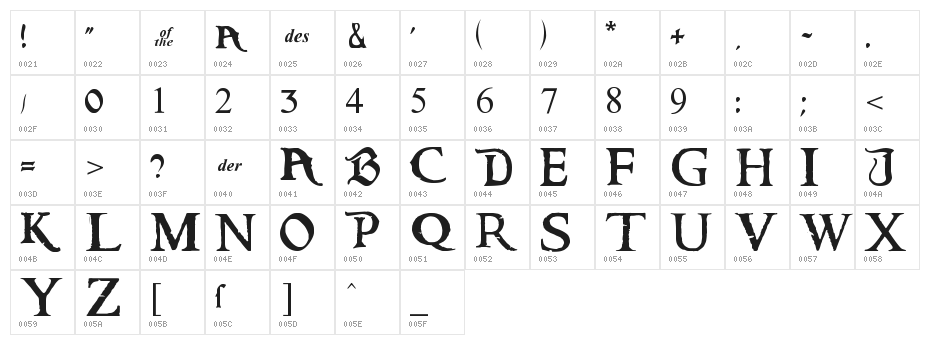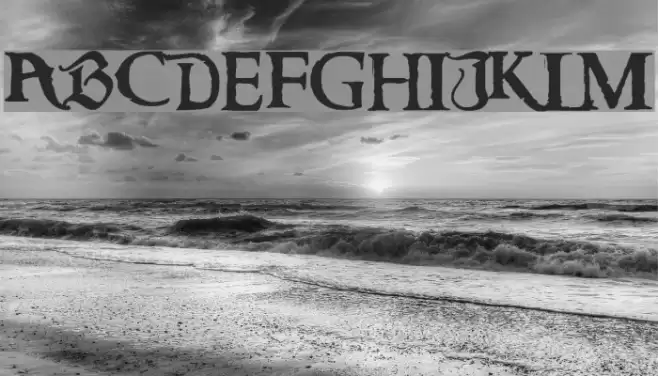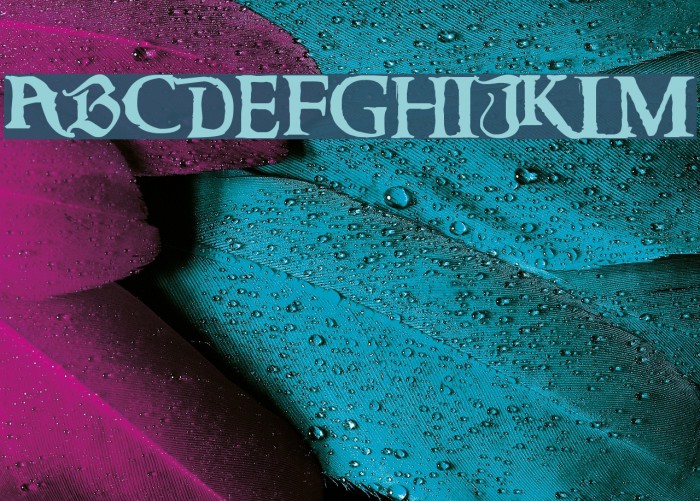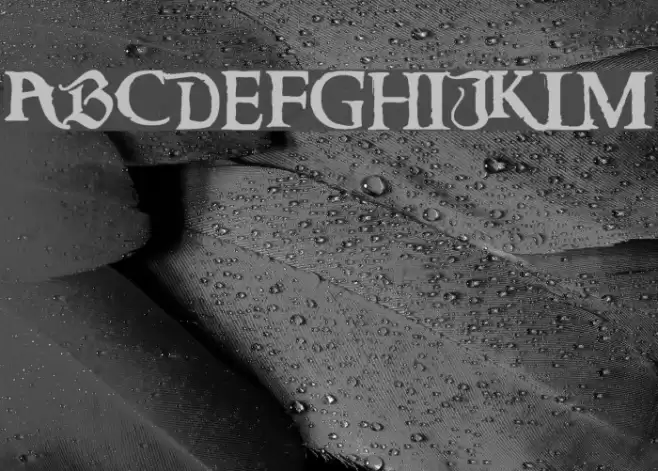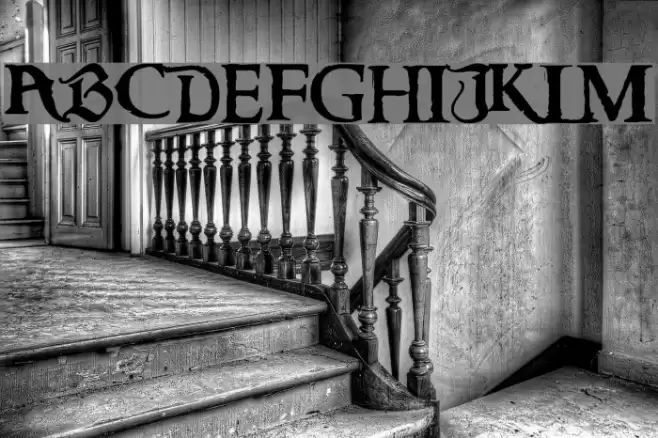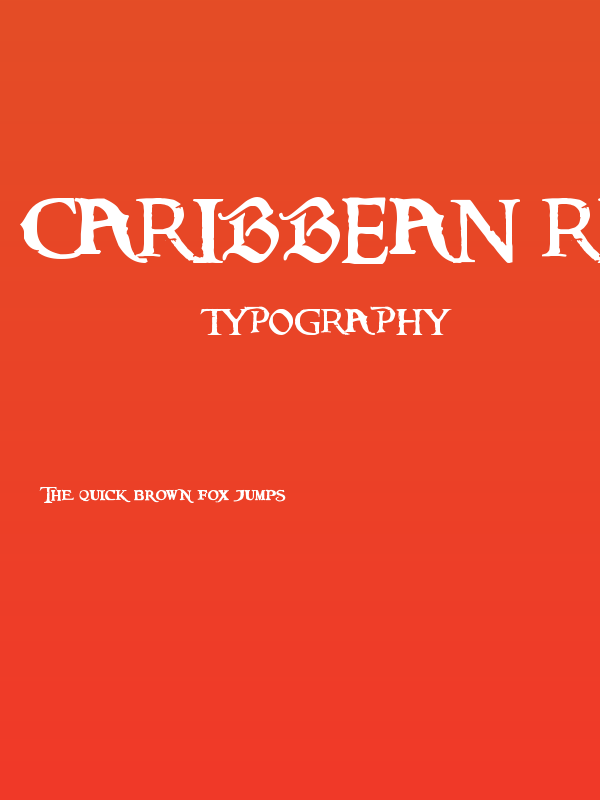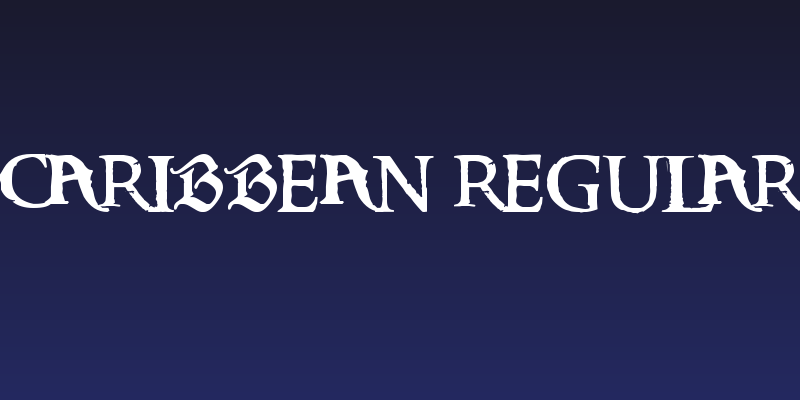
Caribbean Regular Font
Caribbean Regular Description
This font features a bold and dramatic style with a distinctively rugged and weathered appearance. The characters exhibit a hand-crafted look, reminiscent of old pirate maps or vintage nautical themes. The uppercase letters are particularly striking, with exaggerated serifs and uneven strokes that add to its rustic charm. The lowercase letters maintain the same rugged aesthetic, providing a cohesive look across the typeface. Numbers and special characters are designed with the same attention to detail, ensuring versatility in various design applications. The overall impression is one of adventure and mystery, making it ideal for projects that require a touch of the exotic or historical.
| Proposed Projects | Ideal for themed event posters, adventure book covers, pirate-themed branding, or historical documentaries. |